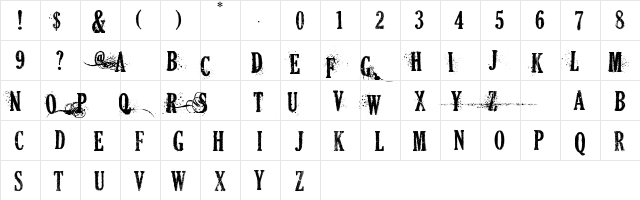
DEAD SECRETARY Regular
Design Context for DEAD SECRETARY Typeface
DEAD SECRETARY is a composed and adaptable typeface that performs quietly and consistently across a wide range of design contexts.
Pro Tip: Use DEAD SECRETARY in both headline and body roles to test its range before committing to a single application.